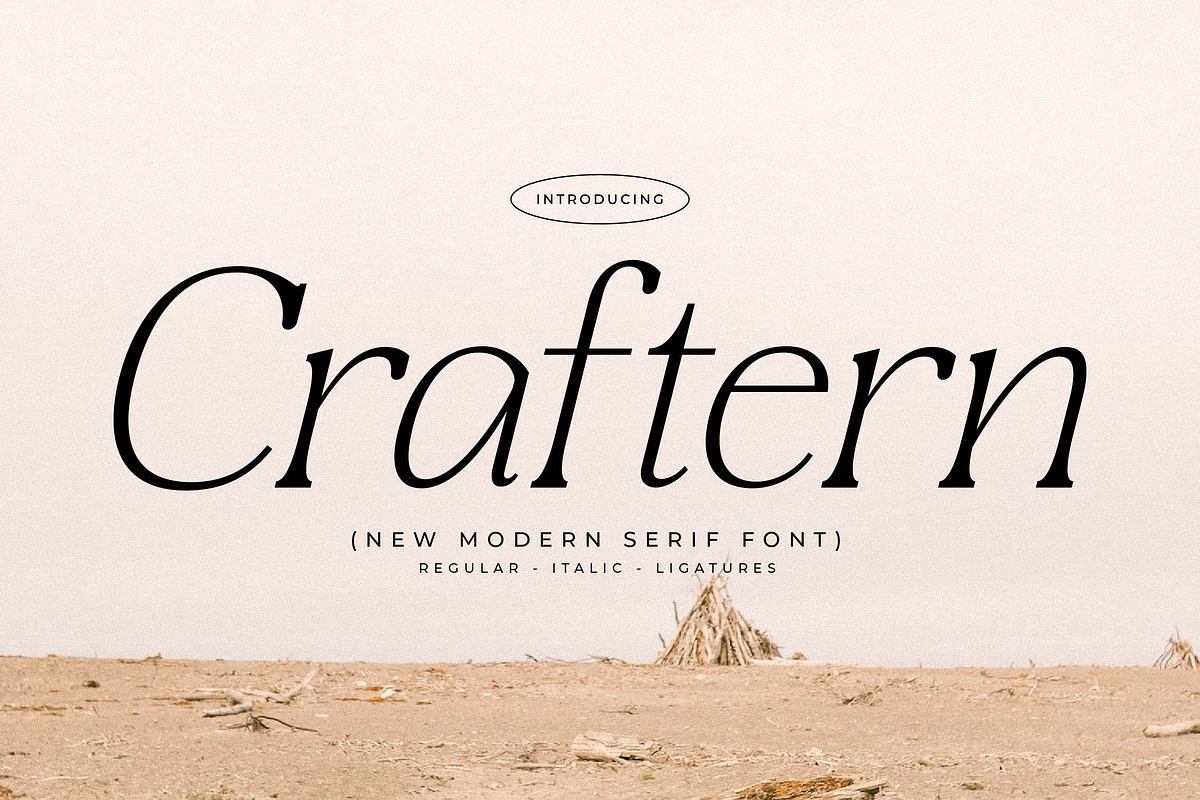
Craftern New Modern Serif Font Free Download
Craftern New Modern Serif Font Free Download is a sleek and stylish typeface that blends classic elegance with a fresh, contemporary twist. Designed for high-end branding, editorial layouts, packaging, and web design, Craftern offers sharp serifs, clean lines, and beautiful contrast that instantly elevates any project.
Whether you’re crafting a luxury logo, fashion magazine spread, or sophisticated wedding suite, Craftern provides both versatility and refinement. Its well-balanced letterforms ensure readability while maintaining a distinct, modern flair.